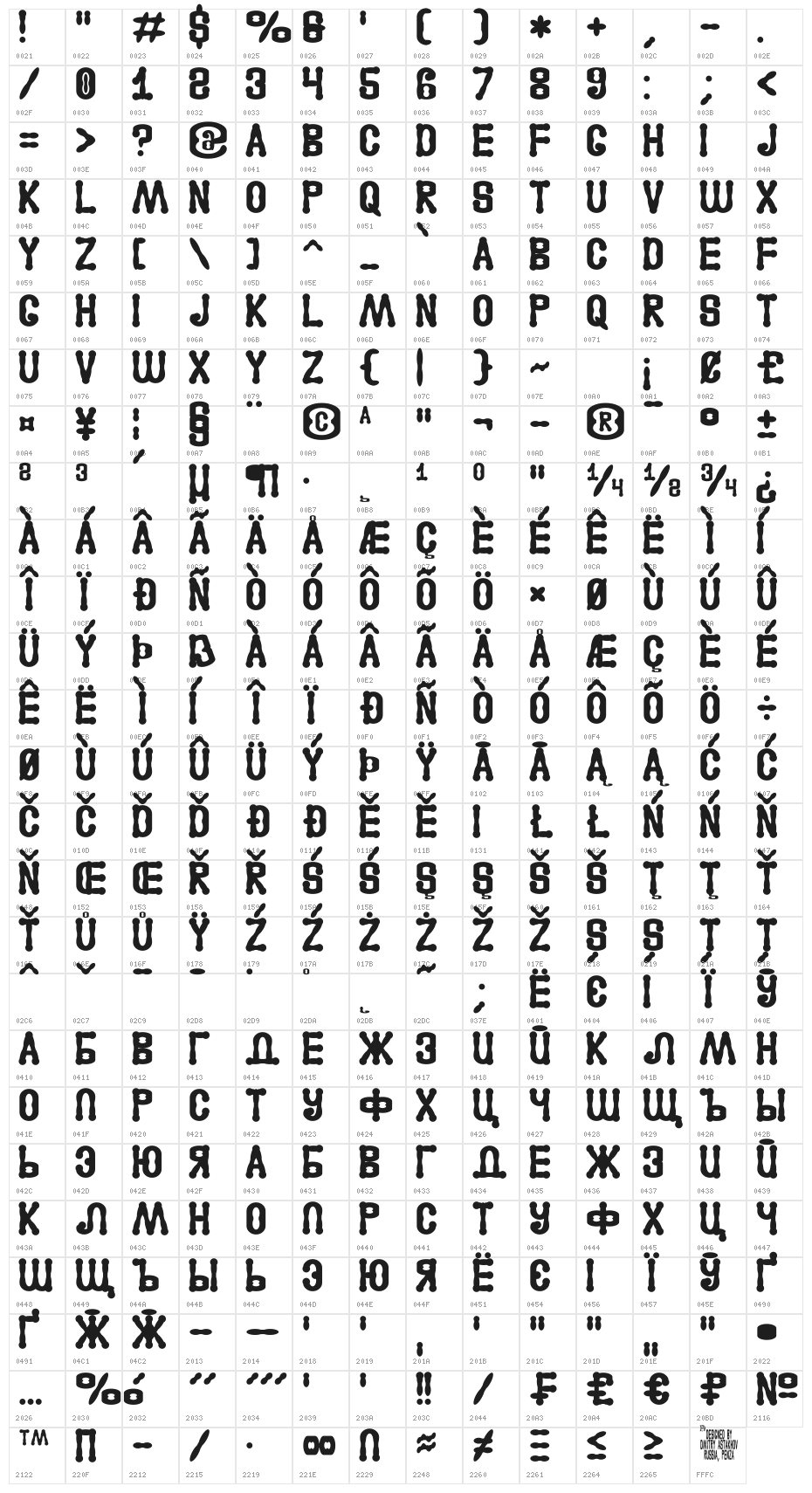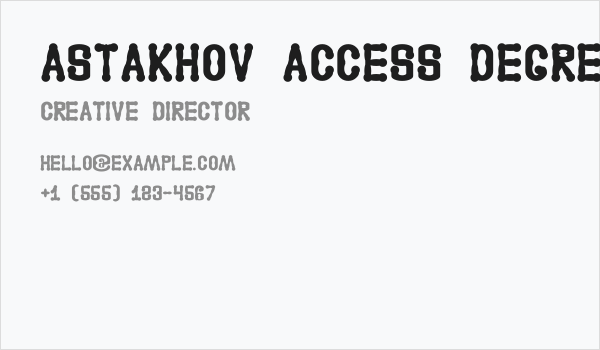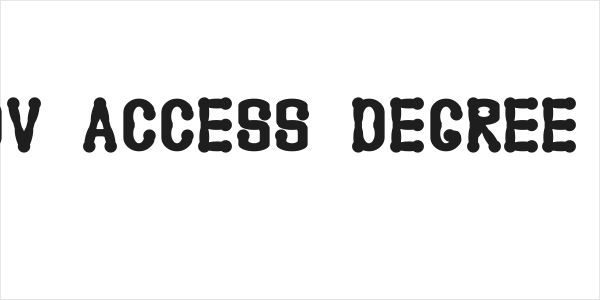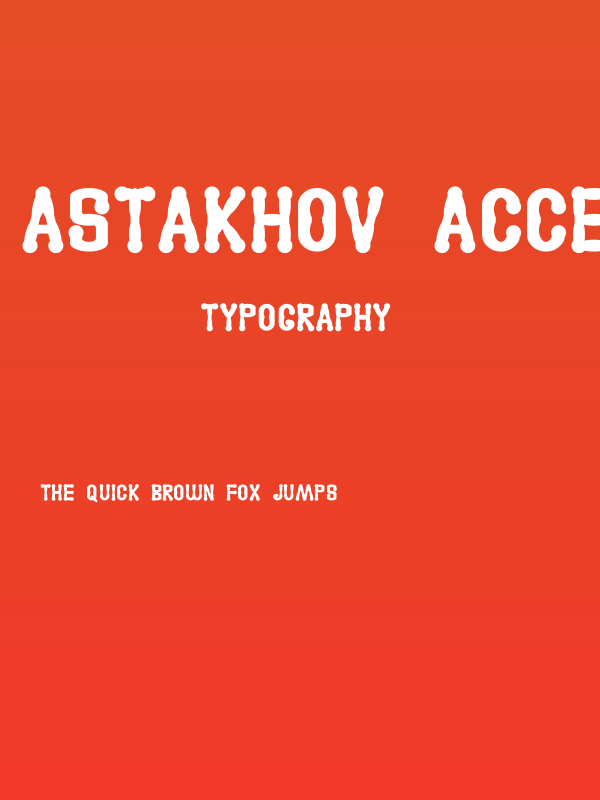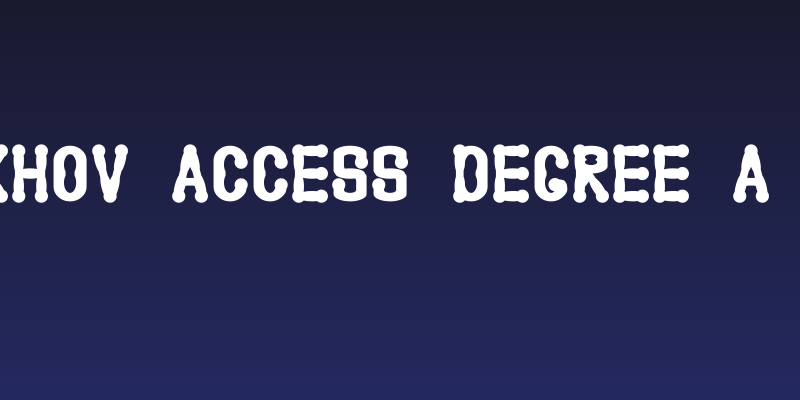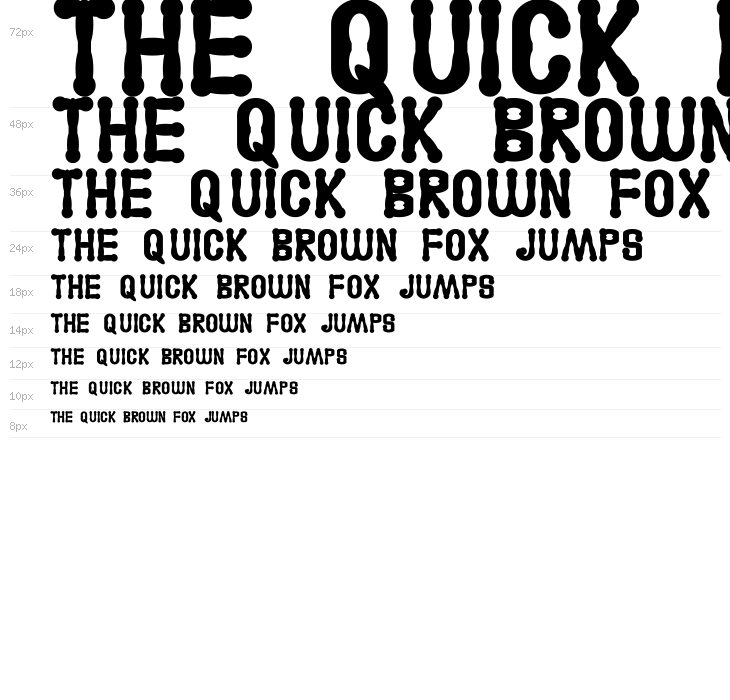
Astakhov Access Degree A Serif Font
Astakhov Access Degree A Serif Description
This font features a bold and playful design with thick, rounded strokes that give it a distinctive and eye-catching appearance. The characters are uniformly bold, with a slightly irregular and organic feel that adds a touch of whimsy. The uppercase and lowercase letters maintain a consistent style, with rounded edges and a slightly compressed form. The numbers and special characters follow the same design principles, ensuring a cohesive look across all elements. This font is well-suited for projects that require a fun and engaging aesthetic, making it ideal for creative and informal applications.
| Proposed Projects | Ideal for children's books, playful branding, posters, and creative design projects. |